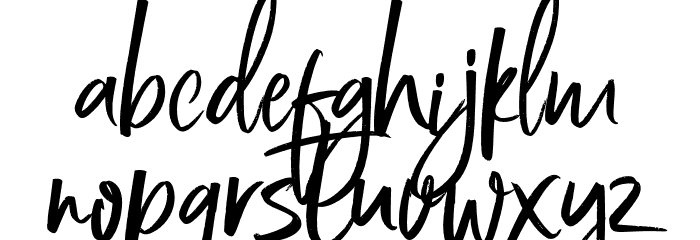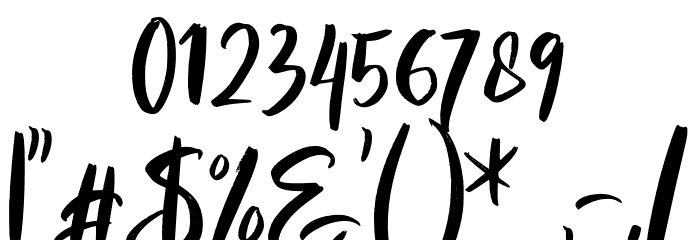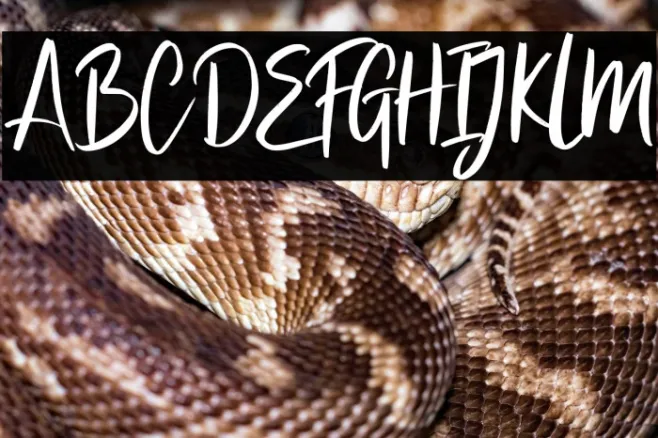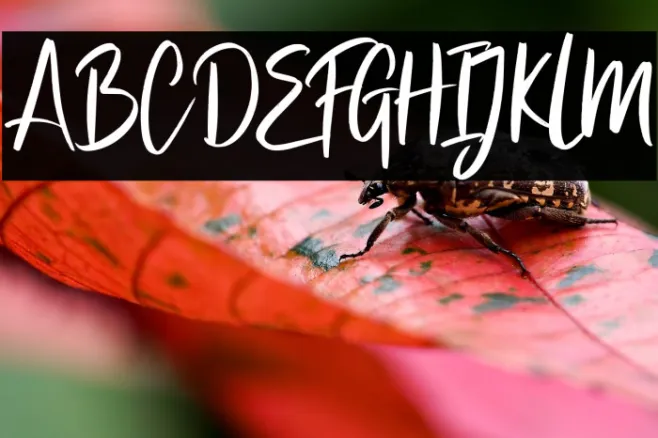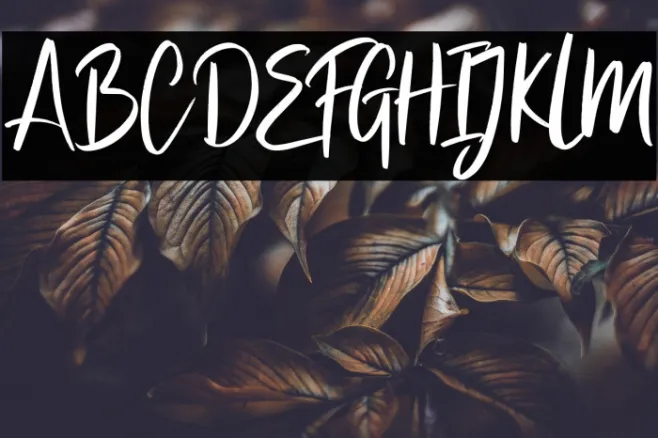
Bestania Font
This font features a dynamic and expressive handwritten style, characterized by its fluid and organic strokes. The uppercase letters are bold and slightly slanted, giving a sense of movement and energy. The lowercase letters maintain a consistent flow, with some letters featuring unique loops and curves that add personality. The numerals are clear and legible, while the special characters complement the overall style with their playful and artistic design. This font exudes a casual yet sophisticated vibe, making it versatile for various creative applications.
A dynamic, expressive handwritten font with fluid strokes and bold characters.
- Font: Bestania
- Proposed Projects: Ideal for branding, invitations, greeting cards, and social media graphics where a personal touch is desired.
- Category: Handwritten
- Use Case: Logos, Headlines, Invitations